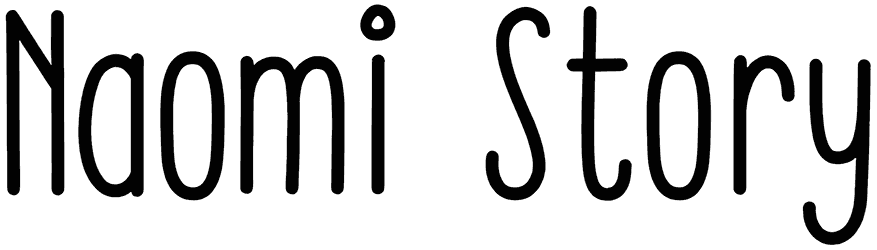
Naomi Story Font
Give a humble and pure vibe to your modern design with this minimalist font and hook a lot of observers. This bullet journal font’s characters have a modest and popular visual, and you can set them for numerous projects,…
Give a humble and pure vibe to your modern design with this minimalist font and hook a lot of observers. This bullet journal font’s characters have a modest and popular visual, and you can set them for numerous projects, such as a baby shower Instagram post. Naomi Story font doesn’t support numbers, yet it can serve as a unique letterform for your innovative layouts.